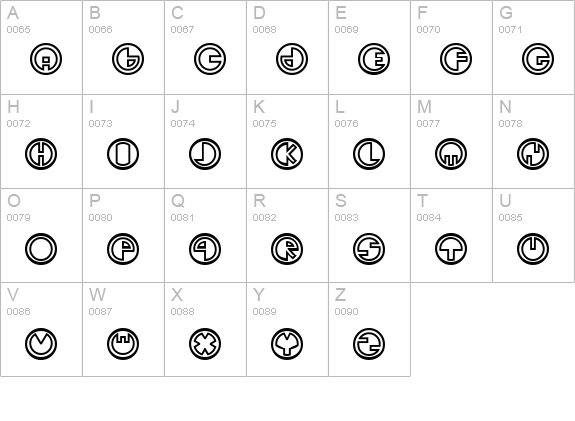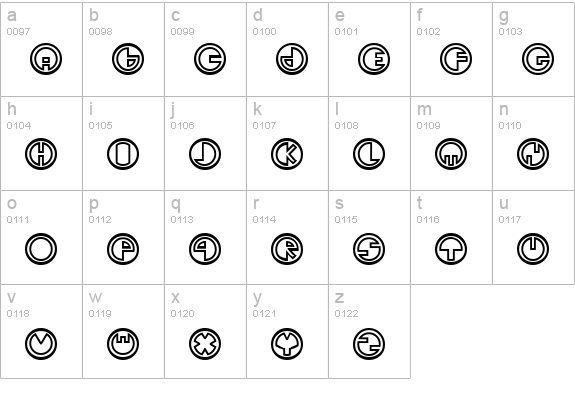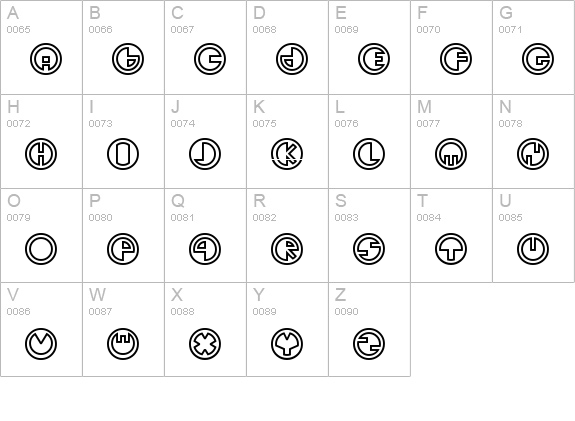
Sirkhular Font Details
Sirkhular font is a unique and modern typeface that combines sleek lines with circular elements, creating a versatile and eye-catching design. This font is perfect for projects that require a contemporary and stylish touch, such as logos, branding, web design, and advertising. With its clean and legible letterforms, Sirkhular font ensures readability across various mediums, making it a great choice for both print and digital applications. The balanced proportions and smooth curves give this font a sense of elegance and sophistication, making it suitable for a wide range of design aesthetics. But what sets Sirkhular font apart from the rest is that it is completely free! That's right, you can download this amazing font at FontsMarket.com without spending a penny. Whether you are a professional designer or a beginner, Sirkhular font offers you the opportunity to enhance your projects with a high-quality typeface without any cost. So why wait? Take advantage of this fantastic offer and give your designs a fresh and modern look with Sirkhular font. Download it now from FontsMarket.com and bring your creative visions to life.